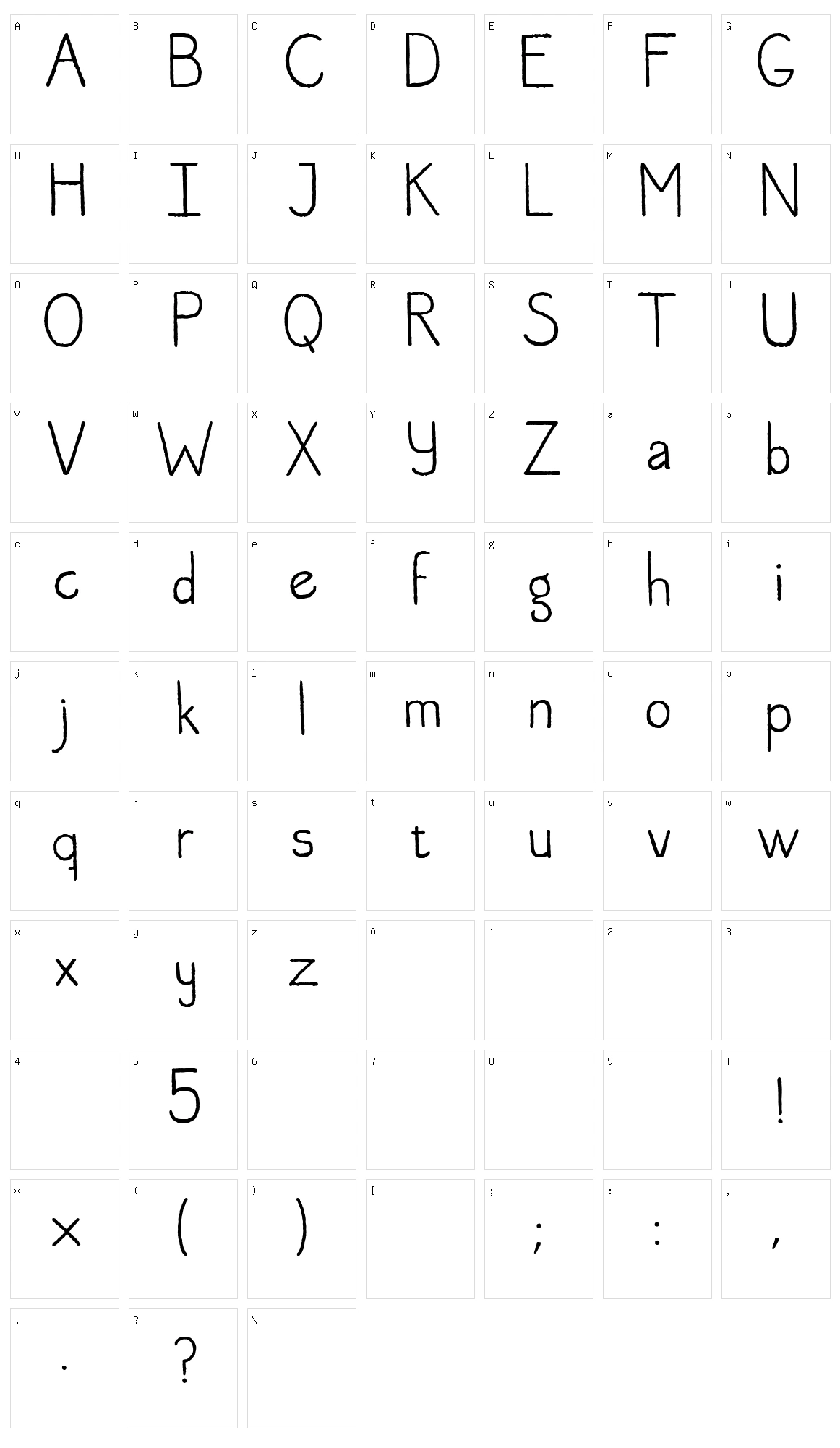
The free font Jose is carefully designed by Miguel Venegas, showcasing a thoughtful balance of creativity and usability and falls under the Eroded font style. When you download the ZIP file, it contains only 67.96 KB of font files, making it lightweight and quick to download. Please review the license details below to understand permitted usage and distribution rights. If license information is not available, we recommend using this font for personal projects only or contacting the author directly for commercial usage permissions.